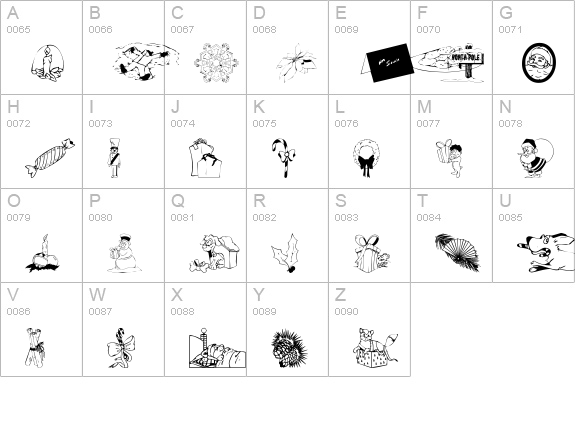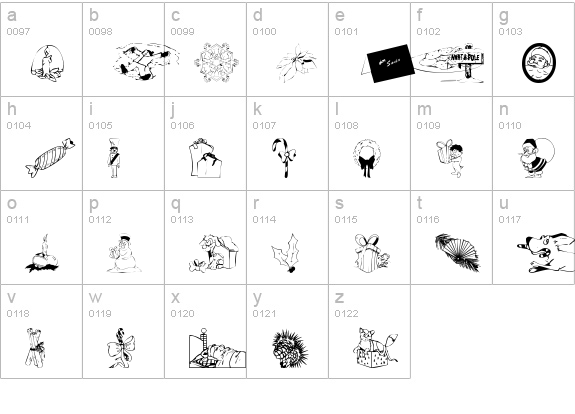
KR Christmas 2002 Dings 4 Font Details
The KR Christmas 2002 Dings 4 font is a delightful and festive typeface perfect for adding a touch of holiday cheer to your designs. This whimsical font features charming Christmas-themed symbols and icons, making it ideal for creating eye-catching cards, invitations, and decorations during the holiday season. What's even better is that the KR Christmas 2002 Dings 4 font is available for free download at FontsMarket.com. You can easily add a cheerful and merry touch to your projects without any cost, thanks to this freely accessible font. Embrace the spirit of Christmas with the KR Christmas 2002 Dings 4 font and spread joy and happiness with your creative designs!